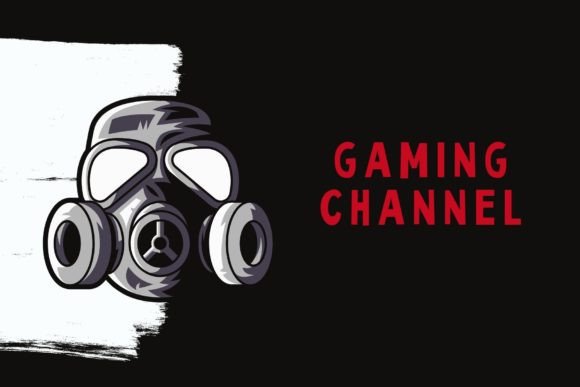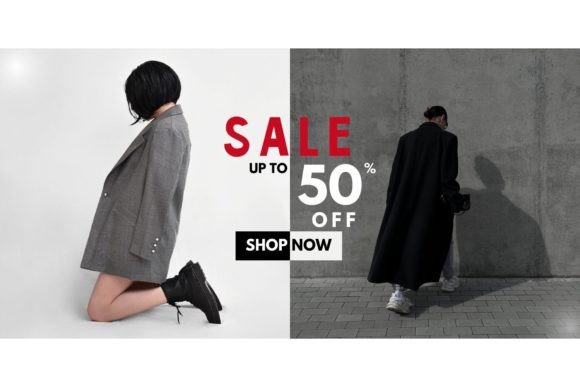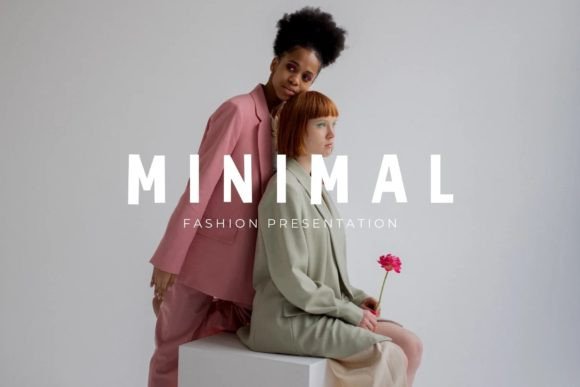
Slivia Dilson Font: Free Download Now
Introduction to Slivia Dilson Font
Immerse yourself in the joyful world of Slivia Dilson, a distinctive and contemporarily chic display typeface.
Crafted with an aura of delightful vibrancy, this font brings a touch of merriment and playfulness to your designs Its versatility is exemplary; be it redefining your brand, alluring packaging, emblematic logo, captivating headlines, or romantic wedding invitations.
Key Features of Slivia Dilson Font
Why Choose Slivia Dilson Font?
Slivia Dilson Font offers exceptional quality and versatility, making it a valuable addition to your design toolkit. Whether you’re creating for personal projects or commercial use, Slivia Dilson Font delivers professional results.